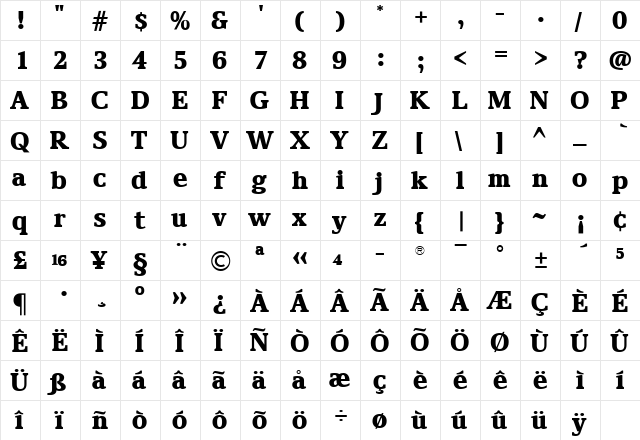
TFArdent Extrabold
| Foundry | Joseph Treacy,Treacyfaces,Inc |
Design Context for TFArdent Typeface
TFArdent takes a measured approach to typography — its balanced proportions and neutral character make it a reliable workhorse for both digital and print work. Its bold stroke weight gives it real presence on the page.